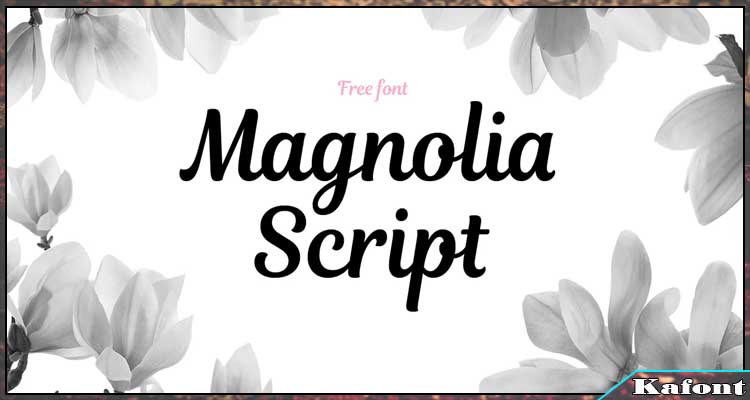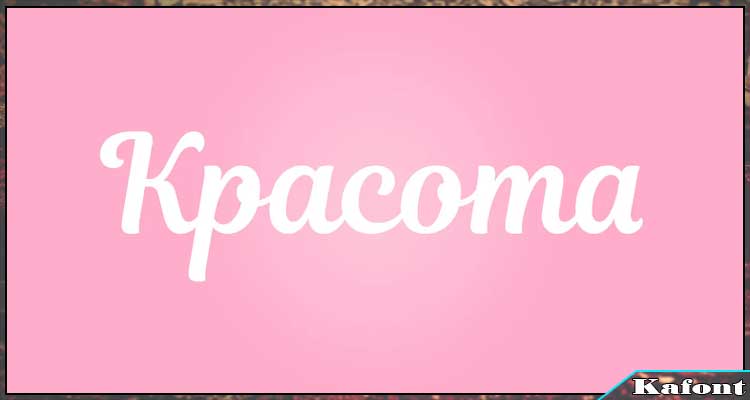
Magnolia Script Comic Font Free is a professionally designed artistic font that allows users to freely use for both their Personal & Commercial Use systems without any limitation.
In fact, this is a freely designed and shared font using typetype. Its advantage is the inclusion of smooth and equally youthful lines. It is because of the inherent attraction of this font that it is used for logo design, wedding invitations, headers, etc. Your projects will certainly be appreciated using this font.
Magnolia Script Font